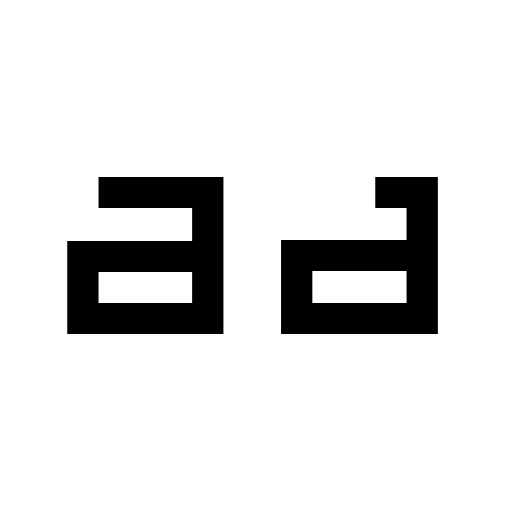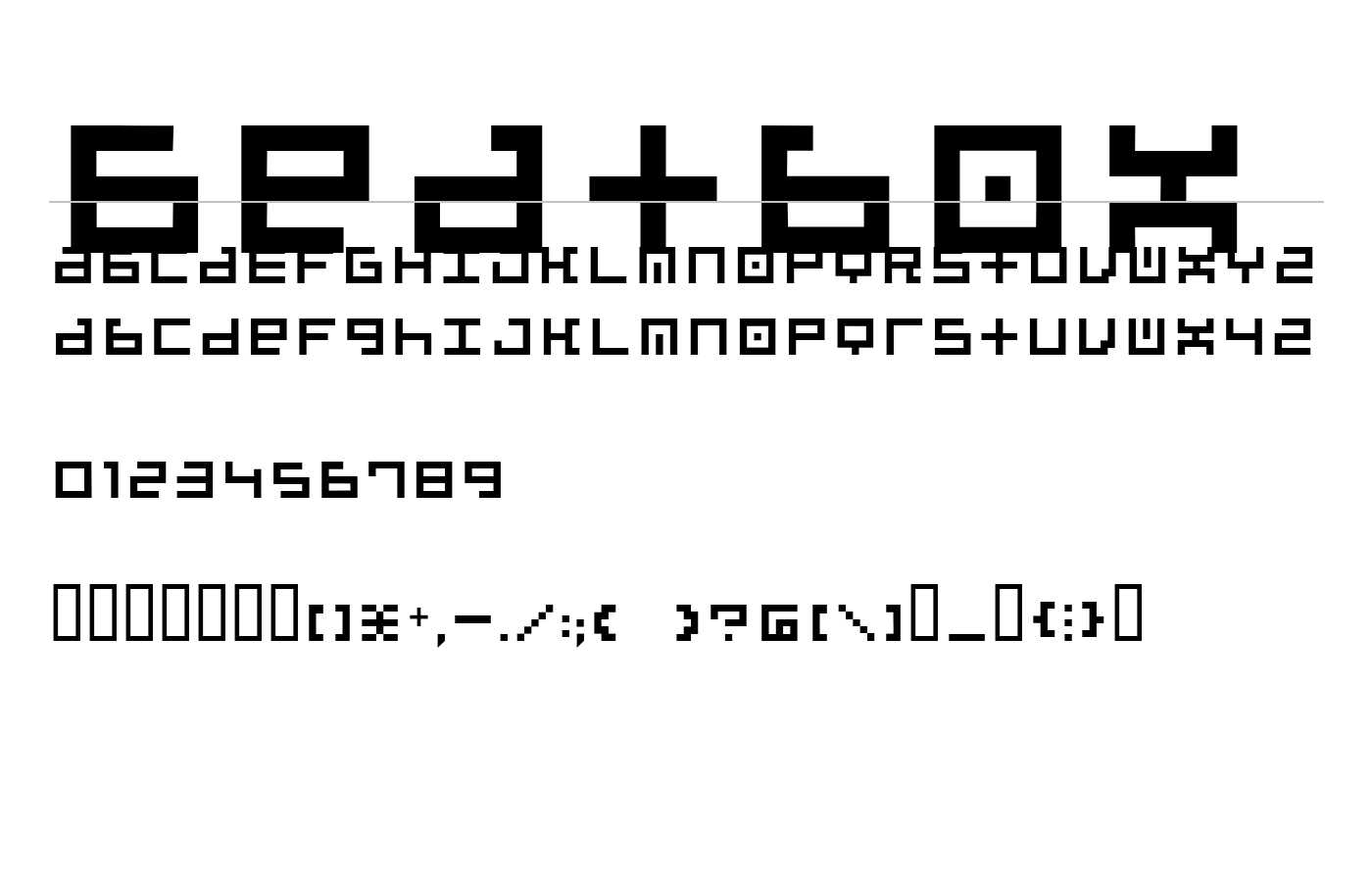
Beatbox Font is a bold, geometric sans serif with a modern, pixelated appearance that gives it a tech-savvy and futuristic vibe. Its strong blocky letterforms and consistent stroke weight make it highly readable at larger sizes, ideal for digital displays, gaming, and tech branding. This font works best for logos, posters, and headlines where a distinctive, edgy, and digital-inspired style is desired.
Beatbox Font
About Beatbox Font